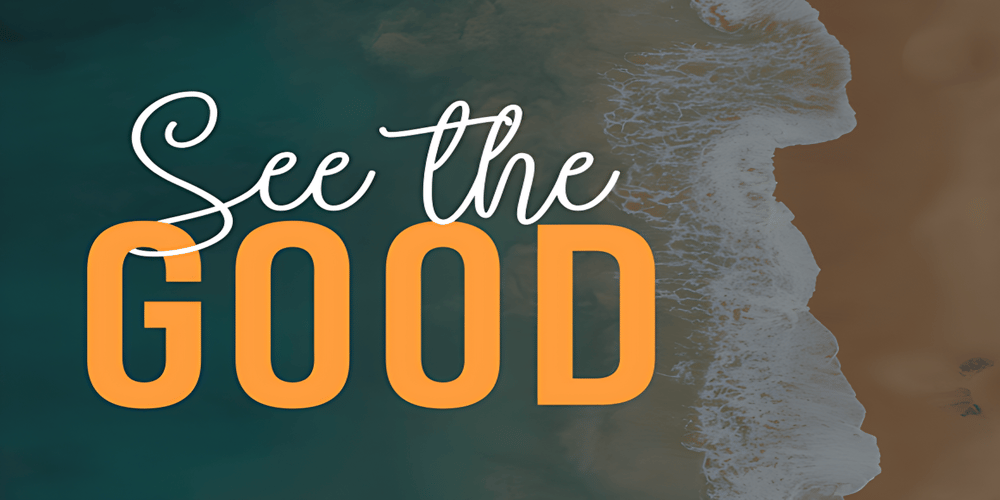
See The Good Font Family was designed by Aditya Rezki Apriyadi and published by Adita Fonts. See The Good contains 2 styles and family package options. See the Good is a bold and assertive sans serif font. No matter the topic, this font will be anincredible asset to your fonts’ library, as it has the potential to elevate any creation.